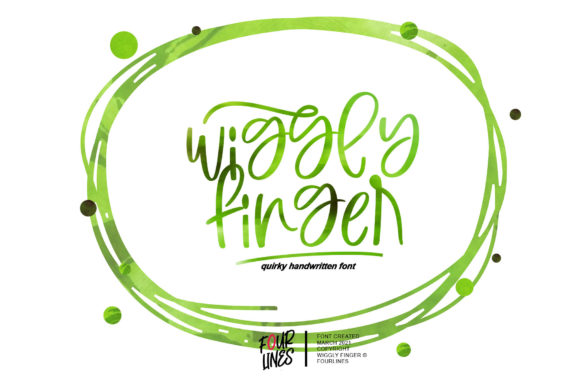
Introducing Wiggly Finger Font - a whimsical and captivating script font crafted by Fourlines.design that will ignite your creativity and bring a touch of delight to your designs. This font family, renowned for its exquisite charm, embodies the essence of elegance and playfulness. Embrace the magic of Wiggly Finger Font and embark on a typographic journey where your words dance with joy and personality.
Immerse yourself in the world of decorative signs, where Wiggly Finger Font reigns supreme. Its charming curves and playful strokes add a touch of whimsy to any handcrafted sign, creating a visual masterpiece that captivates the eye. Imagine the delight of your customers as they stumble upon your uniquely designed signs, each letter a testament to your creative flair.
With Wiggly Finger Font, your invitations take on a new life, exuding an air of enchantment and individuality. Each word, carefully crafted with this exquisite font, becomes an invitation to a world of wonder and enchantment. Your guests will be mesmerized by the intricate details and delightful quirks that adorn their names, setting the tone for an unforgettable occasion.
But the allure of Wiggly Finger Font extends far beyond decorative signs and invitations. Unleash its potential in your design projects, whether it's a captivating logo that leaves a lasting impression, a stunning poster that commands attention, or a vibrant social media post that sparks engagement. Every application of this font is a testament to your discerning taste and creative vision.
Wiggly Finger Font is not just a font; it's an experience. It's a journey into a world where typography meets art, where every letter tells a story, and where your imagination knows no bounds. Embrace the magic of this extraordinary font and elevate your designs to new heights of creativity and charm.